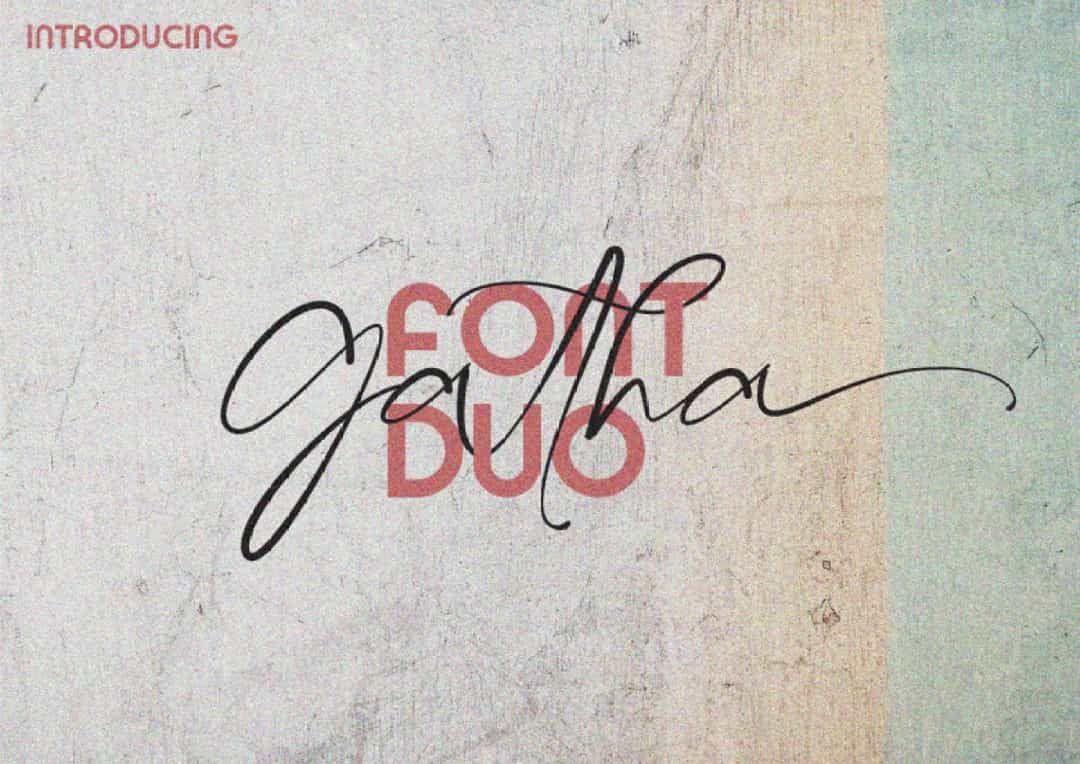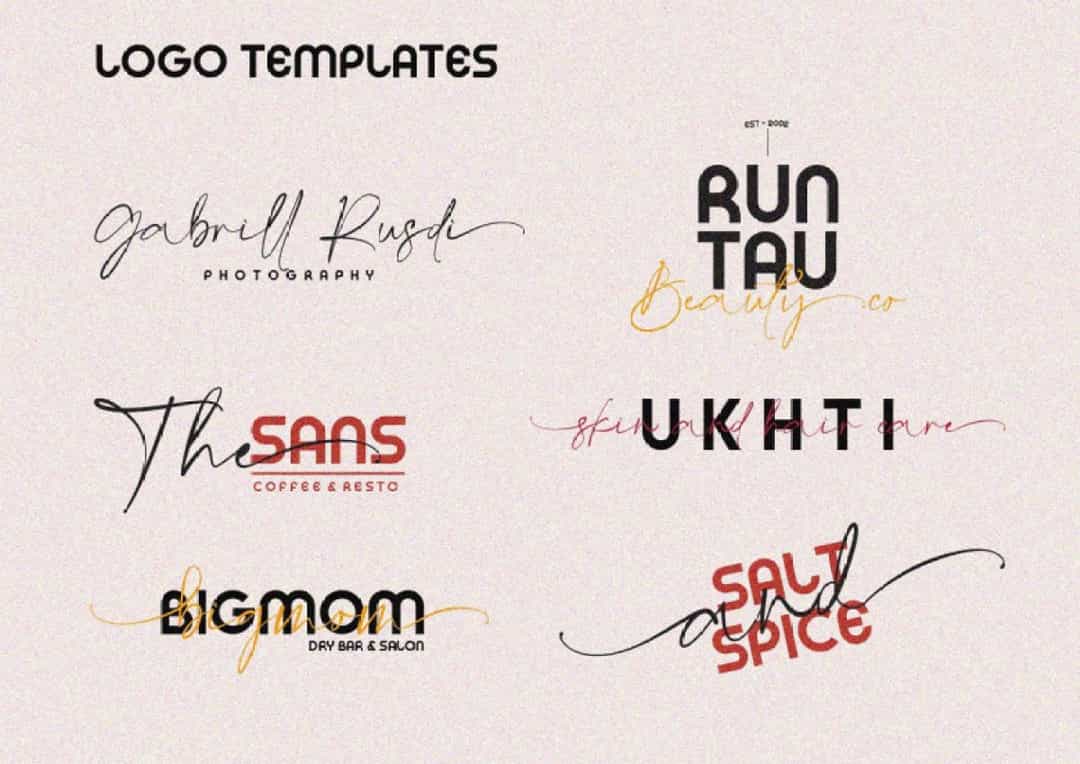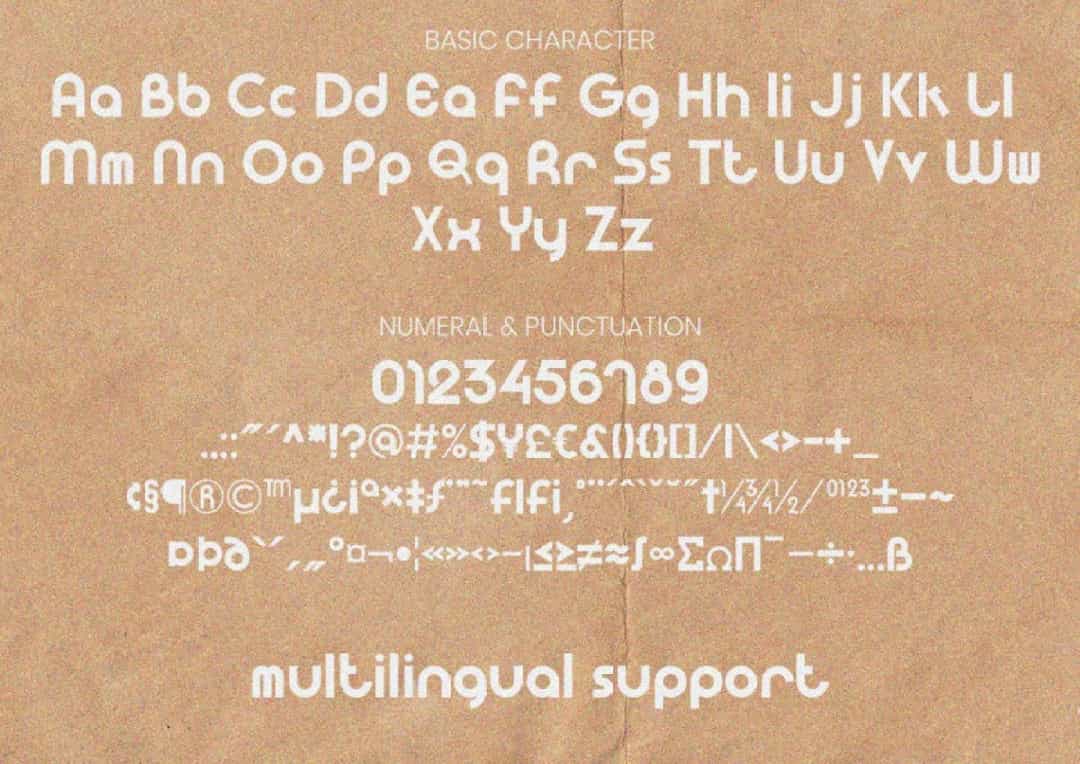
Discover Gatha Free Font Duo, part of the Sans Serif Handwritten collection—a versatile and unique font perfect for adding a personal touch to your projects. Download it for free and enjoy crafting designs with style, from invitations to social media posts. This font is available exclusively for personal use, giving you the freedom to create without limits. Unlock your creativity with Gatha Free Font Duo today!
Gatha free duo font is an absolute match! It is a perfect blend of a stunning script with a stylish sans serif. These styles can be combined to create a fresh and distinctive look!